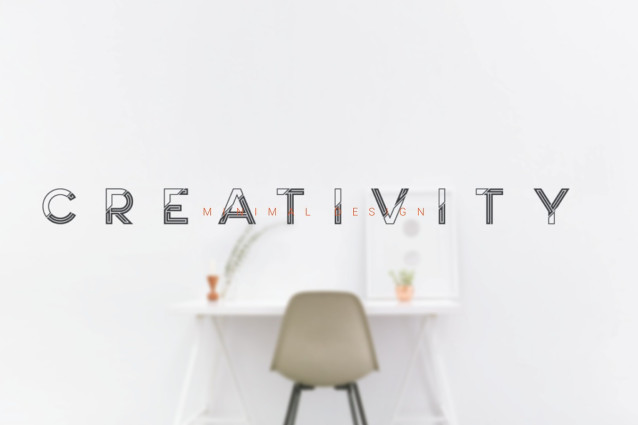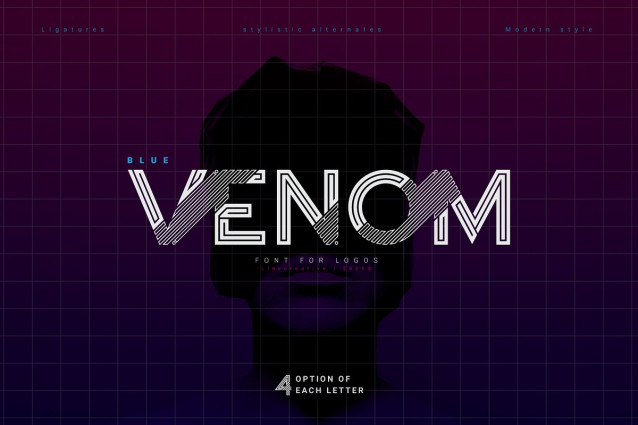
Blue Venom Font
Blue Venom Font is a unique typography with a modern style, Each letter is cut into two parts, the first consists of three labyrinthine combined lines and the other is a diagonal cut line, so that the combination of these two parts into one letter that looks stunning , and each letter consists of four character choices, two character choices for numbers, and equipped with Ligatures (Opentype feature) All character options are included in one font. You can use alternatives in most major image editors, just find the Glyps (Alternate) menu item there. For example, in Adobe Illustrator you need to select the Window / Type / Glyphs menu item.